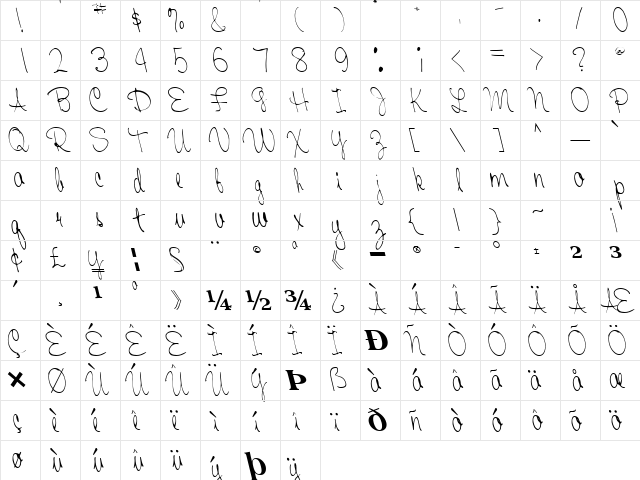
Fair Regular
Design Context for Fair Typeface
Fair takes a measured approach to typography — its balanced proportions and neutral character make it a reliable workhorse for both digital and print work.